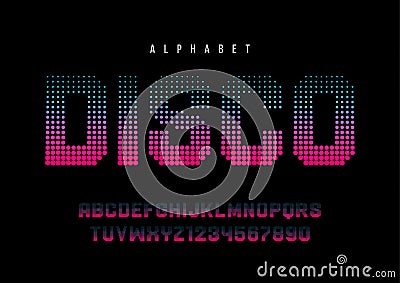
Disco Dotted Halftoned Display Font Design, Alphabet, Typeface, Vector Illustration
Disco dotted halftoned display font design, alphabet, typeface, letters and numbers, typography. Swatch color control.